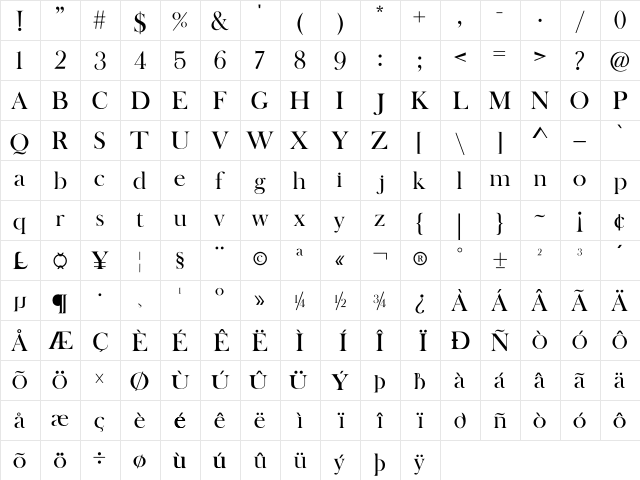
BOSQUE Regular
| Foundry | Creative LAB |
| Designer | Rahmatillah |
Design Context for BOSQUE Typeface
BOSQUE offers clean, dependable letterforms without strong stylistic allegiance, making it a practical choice for designers who need flexibility.
Pro Tip: Use BOSQUE in both headline and body roles to test its range before committing to a single application.